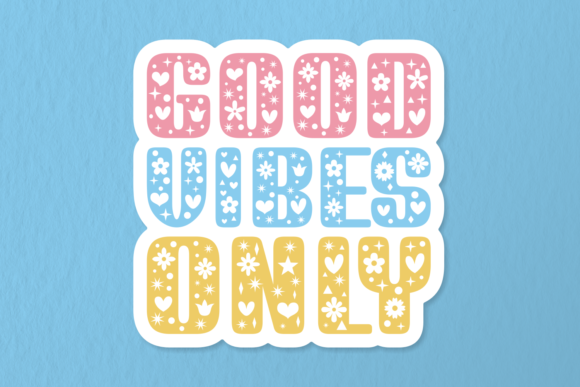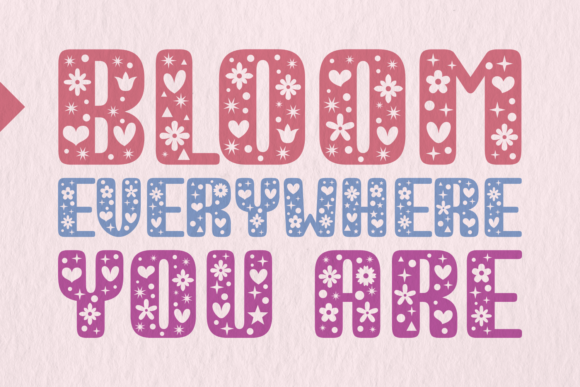
The Sweetest Addition to Your Design Toolbox: Daisy Love Font
You know that feeling when you’re working on a project and suddenly, a spark of creativity hits you? The ideas start flowing, and you can’t wait to bring them to life. For designers like us, those moments are pure magic. And what better way to capture that magic than with a font that’s as sweet as it is stylish?
Enter Daisy Love Font, a delightful decorative typeface that’s sure to put a smile on your face. With its bold, chubby letters adorned with hearts, flowers, stars, and all sorts of cuteness, this font is the perfect addition to any design project. Whether you’re creating a birthday card, a wedding invitation, or a social media post, Daisy Love Font is sure to bring a touch of whimsy and personality to your work.
As a designer, you know how valuable it is to have a versatile font that can help you convey your message in a unique and engaging way. That’s exactly what Daisy Love Font offers – a chance to let your creativity shine and create designs that truly stand out.
Daisy Love Font Key Features
- Font Family: Daisy Love is a unique, hand-drawn font designed to evoke a sense of whimsy and romance.
- Unique Characteristics: The font features intricate details, subtle texture, and a mix of uppercase and lowercase letters, giving it a distinctive, handwritten feel.
Daisy Love Font Review
I recently had the chance to work with the Daisy Love Font and I must say it’s a delightful addition to any design project. Here’s my honest review:
The whimsical feel of the font is perfect for creating a playful and feminine vibe.
The font’s rounded edges and soft curves make it a great choice for designs that need a touch of warmth and approachability.
The font is highly legible, making it easy to read even at smaller font sizes.
The font may not be the best choice for designs that require a bold or edgy look.
The font’s whimsical feel may not be suitable for formal or professional designs.
The font’s limited character set may make it difficult to use for extended blocks of text.
Overall, I’m quite impressed with the Daisy Love Font. It’s a great choice for designers who want to add a touch of playfulness and whimsy to their designs. However, it’s not a one-size-fits-all solution, and designers should carefully consider the tone and style of their project before using this font.
Some tips for getting the most out of the Daisy Love Font include:
- Using it for feminine and whimsical designs.
- Pairing it with pastel colors and floral patterns.
- Applying it to wedding invitations and stationery.